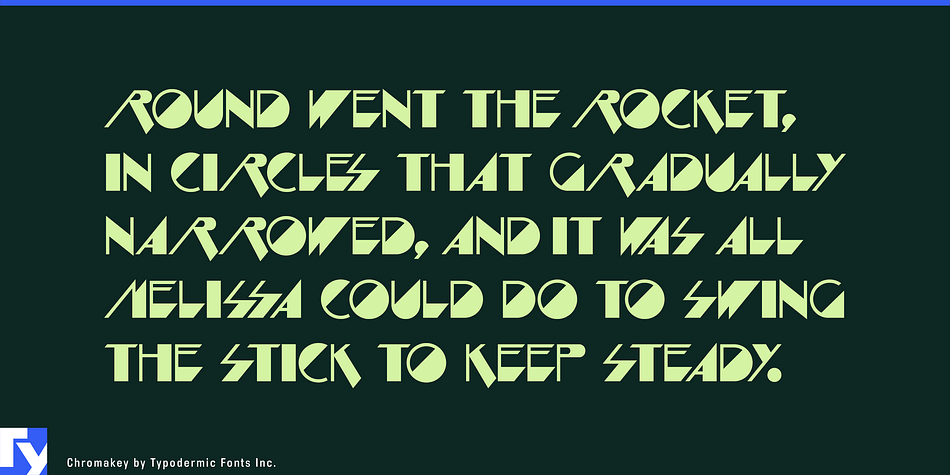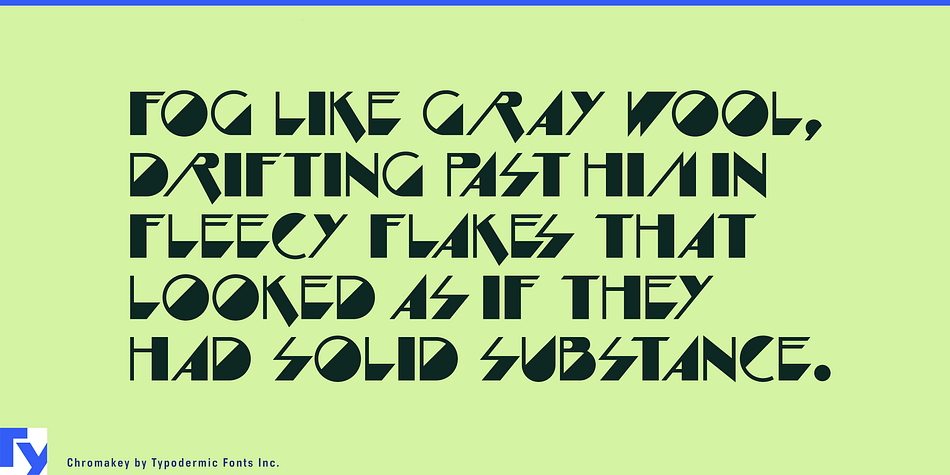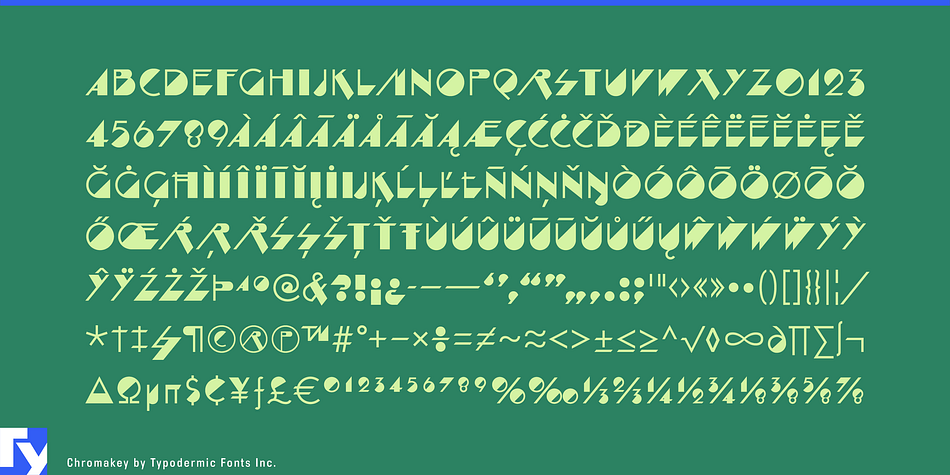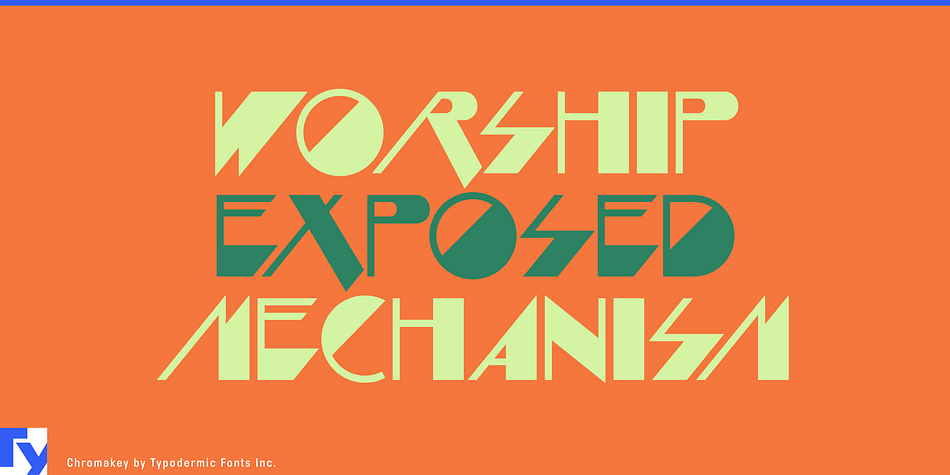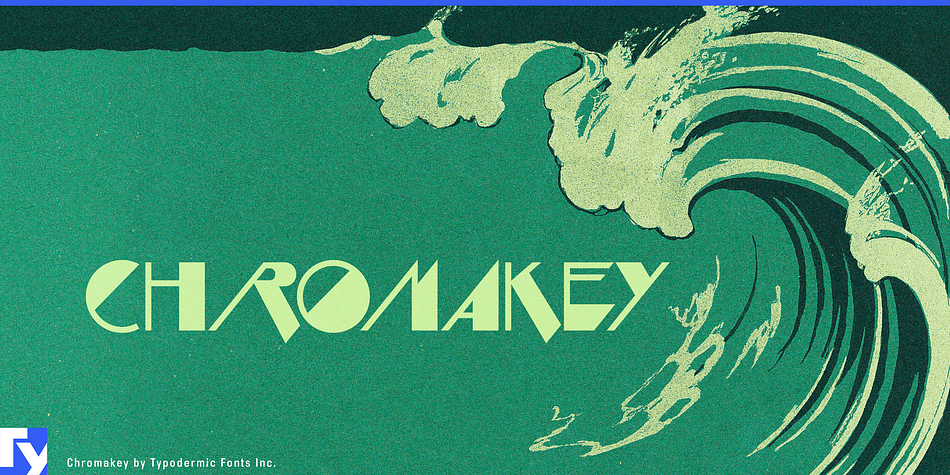
Chromakey is a art deco font published by Typodermic Fonts Inc.
Chromakey is a space deco headline font inspired by box art classic video games including Matrix Marauders and Magical Chase.